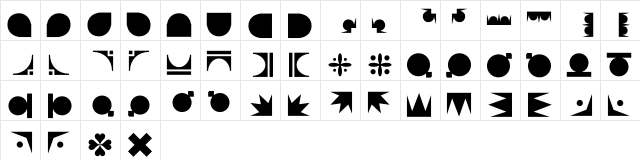
Eames Frames A Regular
| Foundry | House Industries |
| Designer | Ben Kiel based on designs of Charles and Ray Eames |
Design Context for Eames Frames A Typeface
Eames Frames A is a composed and adaptable typeface that performs quietly and consistently across a wide range of design contexts.